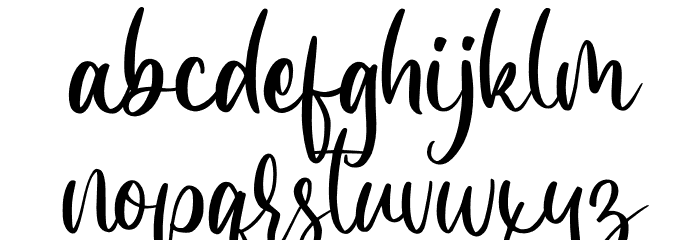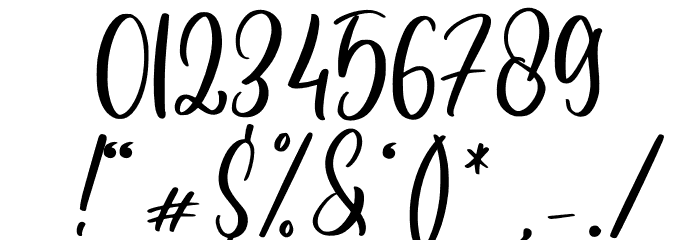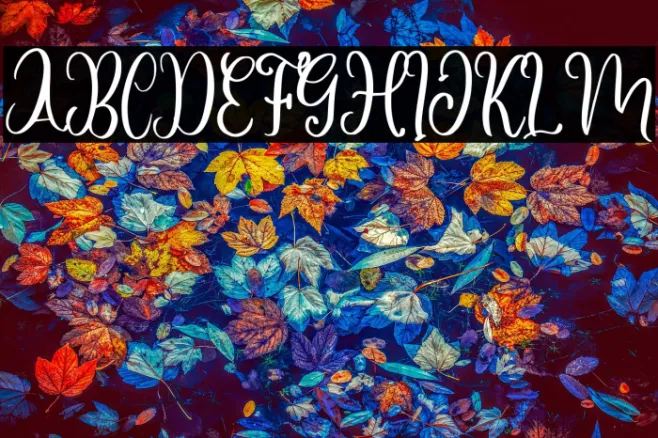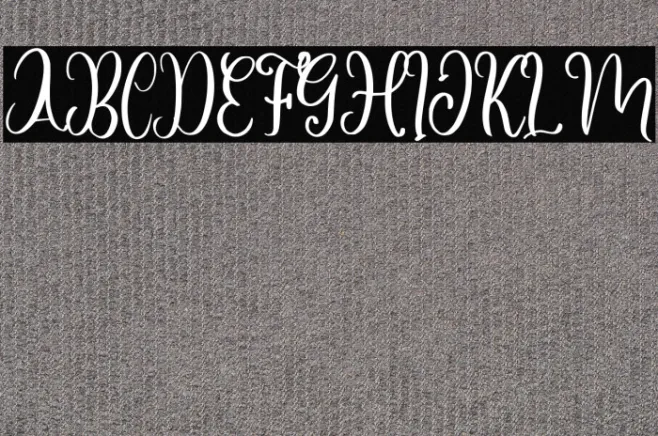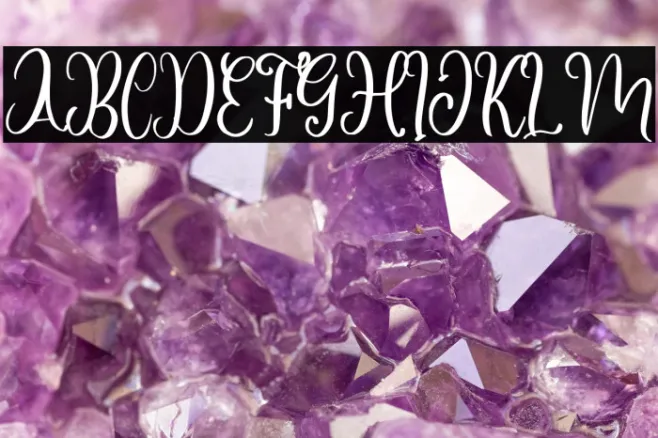
Better Zone Font
This font features a dynamic and flowing script style, characterized by its elegant and fluid letterforms. The uppercase letters exhibit a graceful, looping design, while the lowercase letters maintain a consistent, cursive flow. The numerals are distinct yet harmonize well with the overall script aesthetic. Special characters are creatively integrated, adding a playful touch to the font. The strokes vary in thickness, providing a medium contrast that enhances readability while maintaining a stylish appearance. This font is ideal for projects that require a personal and artistic touch.
A dynamic and flowing script font with elegant, cursive letterforms and medium contrast.
- Font: Better Zone
- Proposed Projects: Ideal for wedding invitations, greeting cards, branding projects, and social media graphics.
- Category: Script
- Use Case: Logos, Invitations, Artistic projects